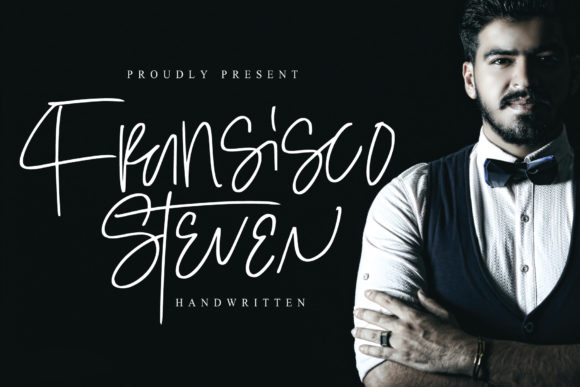
About Steven Fransisco Font
Handwritten fonts are often preferred to add a unique and personal touch to designs. Steven Fransisco, being a classic handwritten font, possesses a distinctive and timeless style. By using this font in your design projects, you can establish a visually captivating and emotionally engaging connection with your audience.
The PUA encoding of Steven Fransisco allows access to a wide range of characters and special swashes. This feature enables you to create eye-catching transitions between letters and incorporate delightful embellishments. Not only limited to standard characters, you can also infuse your typography with a more personalized and creative flair.
With this font, you’ll discover numerous creative possibilities. It can be a perfect fit for projects like cards, invitations, logos, posters, and social media visuals. Additionally, the style of Steven Fransisco can be easily adapted to various creative fields such as book covers, flyers, and art projects.
When using this font to write a piece of text, it establishes a strong connection and allows you to present the content with a sense of ownership. Its unique and warm style can make your projects memorable and impactful. Standing out among classic handwritten fonts, Steven Fransisco has the potential to elevate your design endeavors to a higher level.
Using this font, you can infuse your designs with elegance and modernity, leaving a lasting impression on your viewers. However, it’s essential to pay attention to typography rules while arranging the text to ensure proper cohesion and visual harmony. Carefully decorating letters when needed will ensure that your projects appear professional and aesthetically pleasing.
In conclusion, by using Steven Fransisco font, you can add an elegant and contemporary touch to your design projects, captivating your audience and making a lasting impact. Pushing the boundaries of your usage and creativity, you can create spectacular and unforgettable designs with this font.